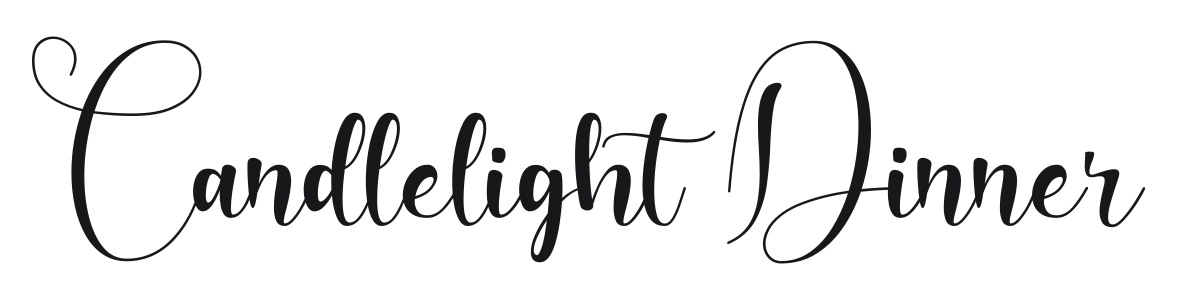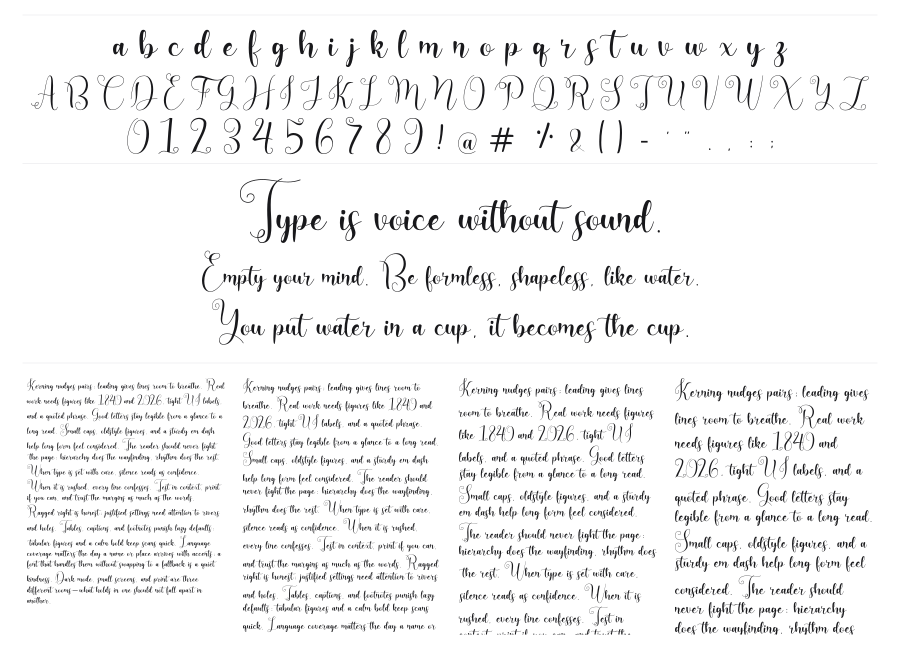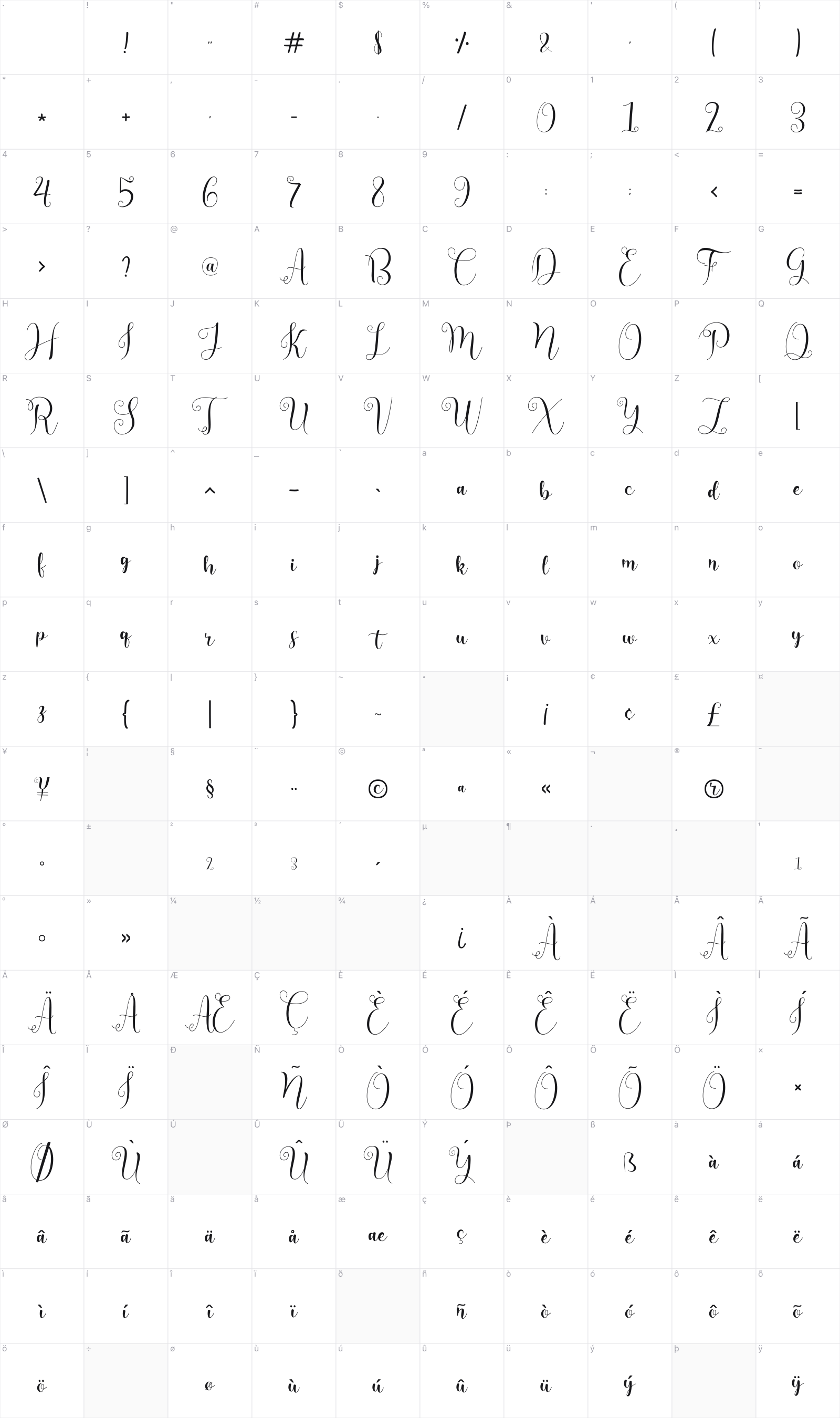
Candlelight Dinner
Candlelight Dinner is a contemporary brush script built around a lively bouncing baseline and expressive connecting strokes. The moderate contrast between thick downstrokes and delicate hairlines gives it that hand-lettered warmth without feeling rough. It suits wedding stationery, restaurant branding, product packaging, and any project that needs a romantic, celebratory touch.